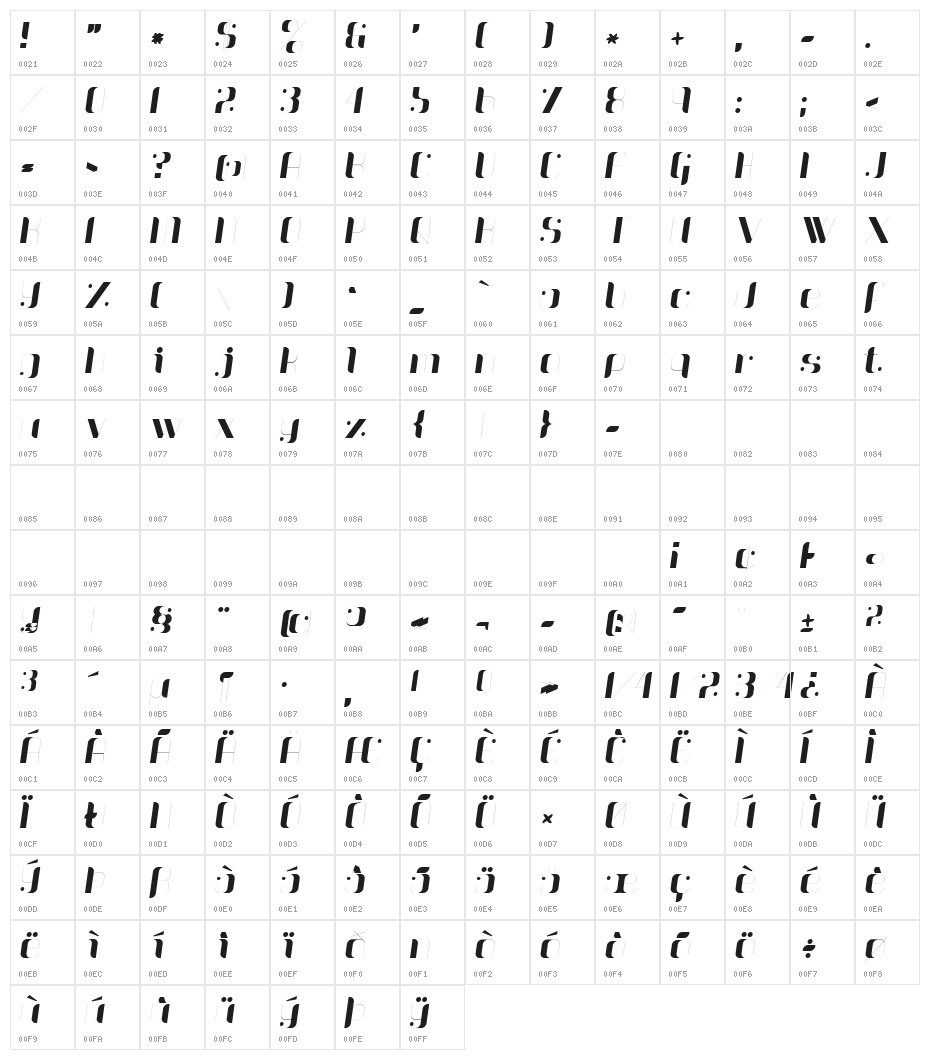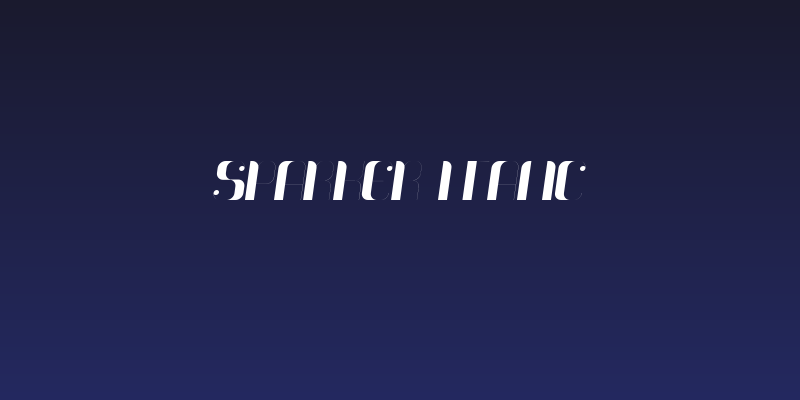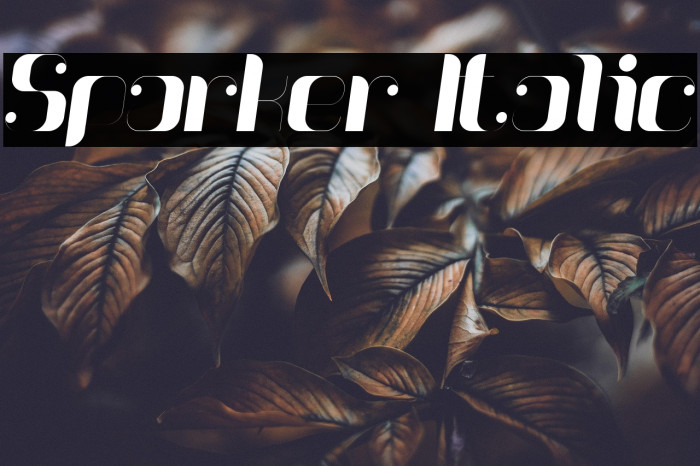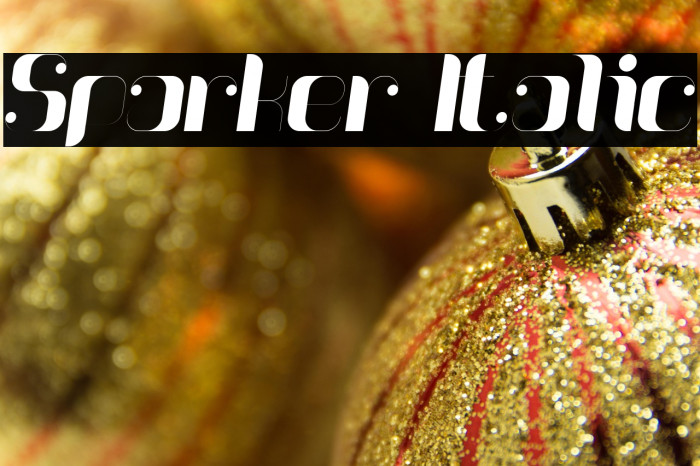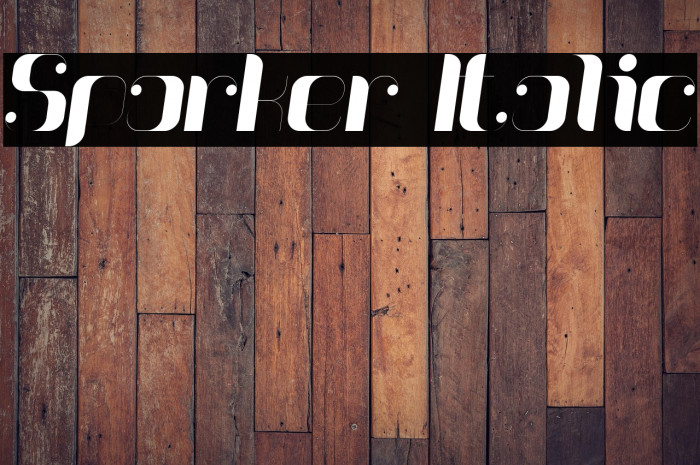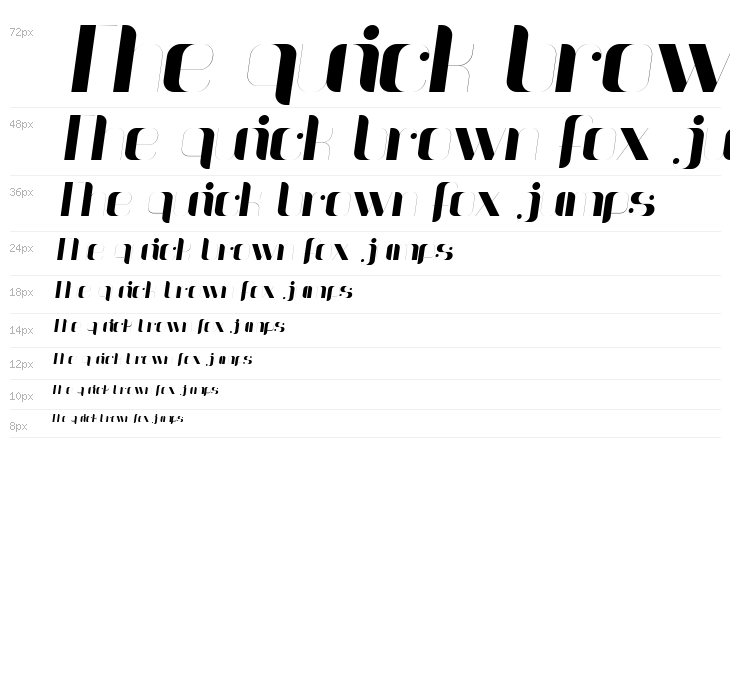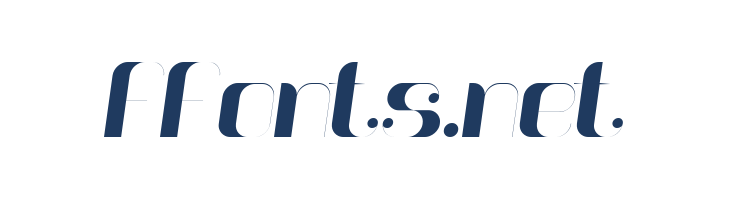
Sparker Italic Font
Sparker Italic Description
This font features a modern and stylish design with a distinct italic slant. The characters are composed of bold, thick strokes combined with thin, delicate lines, creating a high contrast that adds a dynamic and elegant feel. The unique design includes rounded edges and a sleek, futuristic appearance, making it stand out in any design project. The uppercase and lowercase letters maintain a consistent style, while the numerals and special characters complement the overall aesthetic. This font is perfect for projects that require a contemporary and sophisticated look.
| Overall Style | Modern, Decorative |
| Use Case | Headlines, Logos, Branding |
| Proposed Projects | Ideal for branding, advertising, fashion magazines, and digital media projects. |